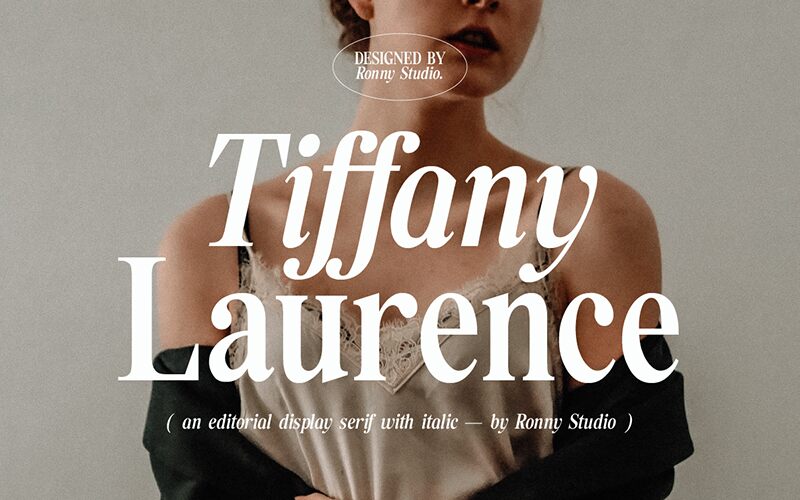
Tiffany Laurence, designed by Ronny Studio, is a captivating serif font with a condensed width.
This elegant typeface exudes sophistication and refinement, making it perfect for luxury branding projects. Its slender design adds a touch of class to book covers and editorial layouts. With its clean lines and timeless appeal, Tiffany Laurence is also well-suited for wedding invitations and stationery designs, giving them an air of grace and style.
Whether you're aiming for classic elegance or modern chic, this versatile font will elevate your project to new heights.